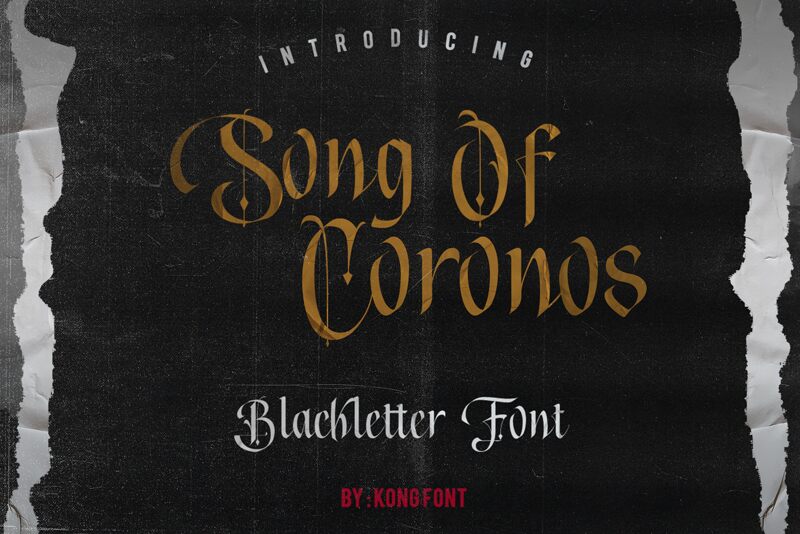
Song of Coronos, a captivating creation by font designer Kong Esport, invites you into the enchanting world of medieval script. With its semi-light weight and semi-condensed width, this unique font exudes elegance and grace. Perfect for historical book covers, fantasy game titles, or spellbinding movie posters, Song of Coronos adds an air of mystique to any project. Let your imagination run wild as you unleash the power of this exquisite typeface and transport your audience to a bygone era filled with knights, castles, and epic adventures.